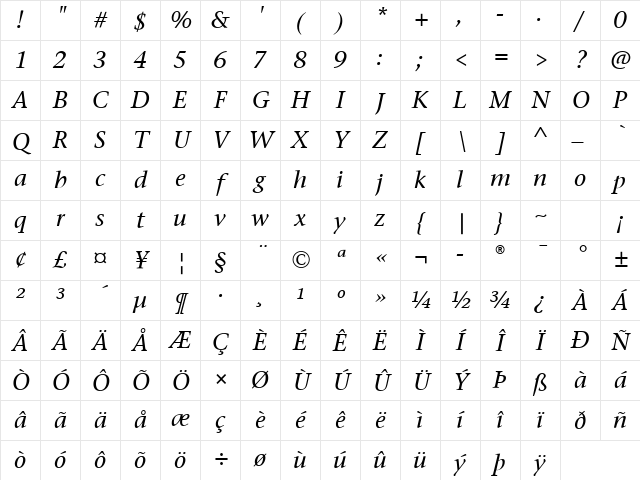
Stone Serif ITC Medium Italic Free Font
Design Context for Stone Serif ITC Medium
Stone Serif ITC Medium carries the refined structure of traditional serif typography, with bracketed terminals and considered proportions that communicate credibility and craft. The slanted form adds forward momentum and visual energy.